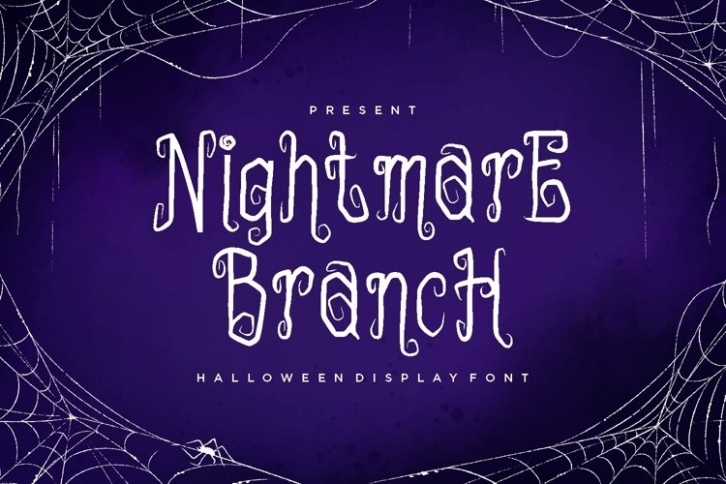
NIGHTMAREBRANCH is a beautiful font that was designed by plusstore. It's a great choice for designers and creatives who need such a font. It was released on September 10, 2021 and the file size is 18.89 MB. NIGHTMAREBRANCH may give a more youthful, expressive and casual look to your project. It is a very beautiful, refined, elegant, and high-quality font.